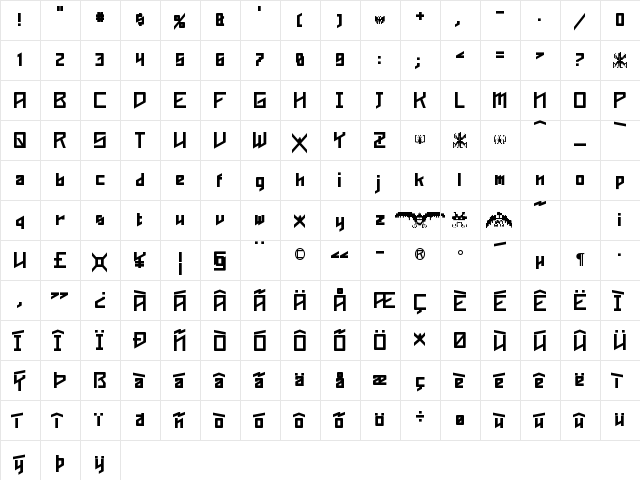
Phoenixians Bold Free Font
Phoenixians Bold
Foundry: Pixel Sagas
Designer: Neale Davidson
Design Context for Phoenixians
Phoenixians is a composed and adaptable typeface that performs quietly and consistently across a wide range of design contexts. Its bold stroke weight gives it real presence on the page.